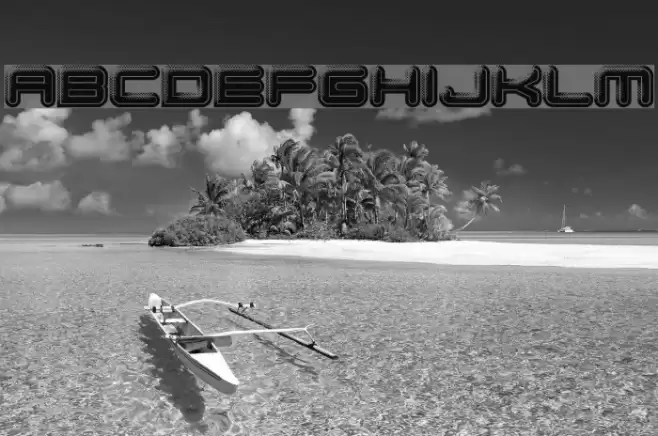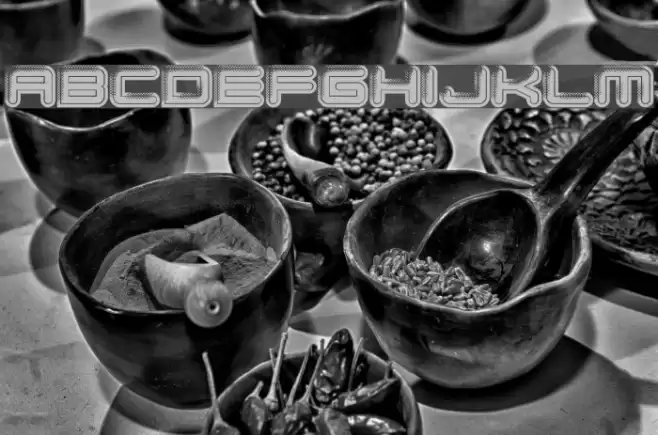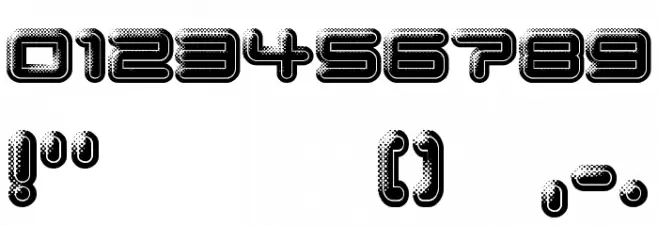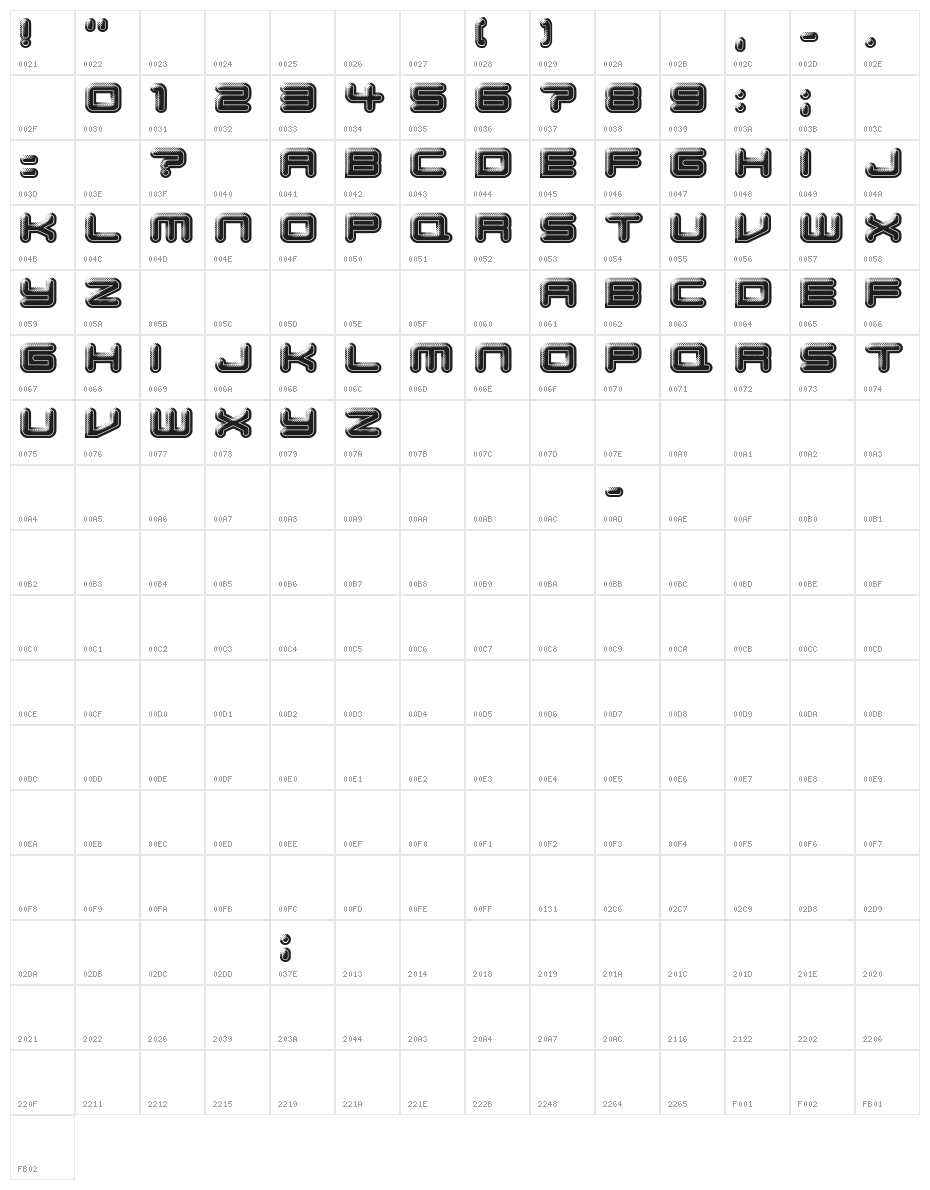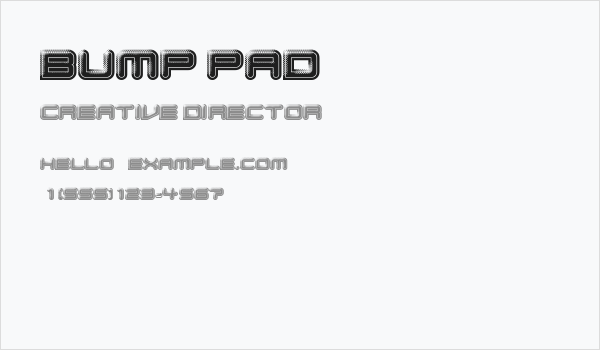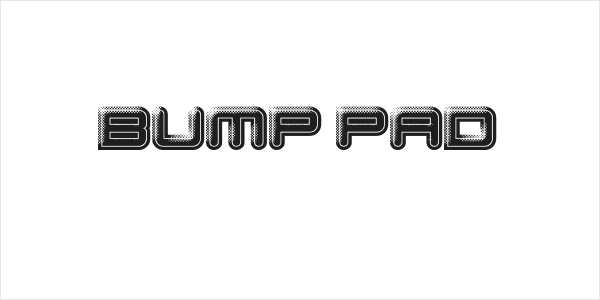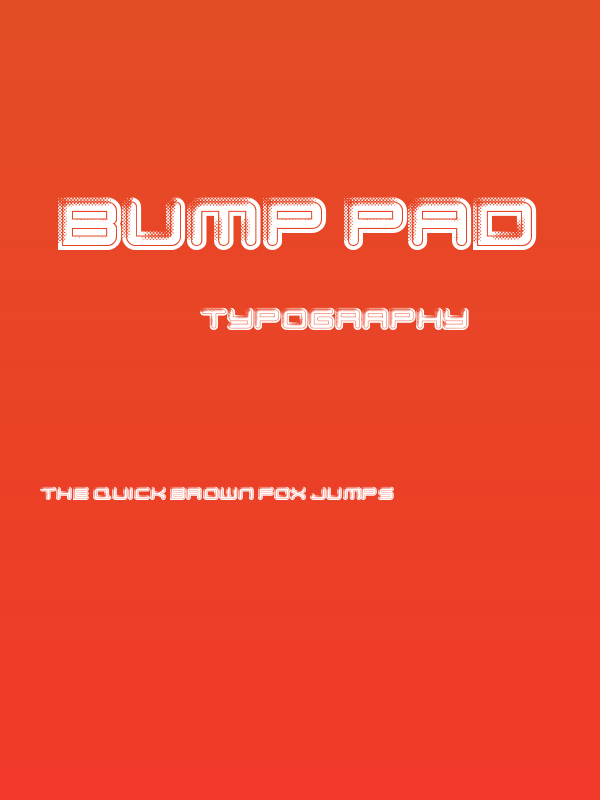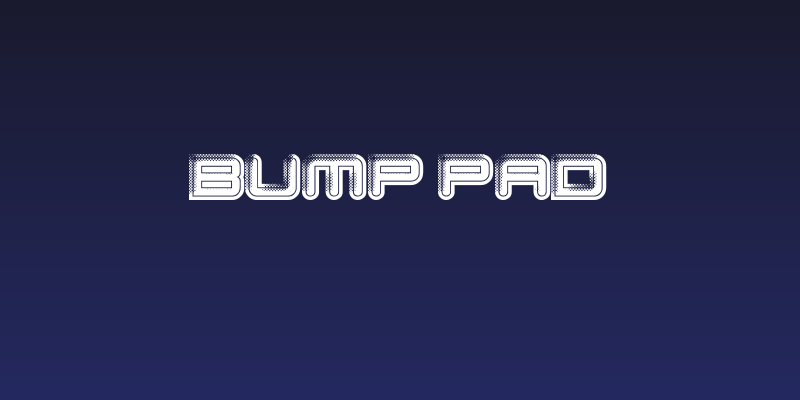
Bump Pad Font
Bump Pad Description
This font features a bold, futuristic design with a unique dotted texture that creates a sense of depth and dimension. The characters are outlined with a thick black border, enhancing their visibility and impact. Each letter and number maintains a consistent height and width, contributing to a uniform appearance. The style is distinctly modern, with a playful yet structured aesthetic. The rounded edges and smooth curves add a touch of softness to the otherwise robust design, making it suitable for a variety of creative applications. The font's distinctive look is ideal for projects that require a standout visual element.
A bold, futuristic font with a dotted texture and thick outlines from Uncategorized fonts.